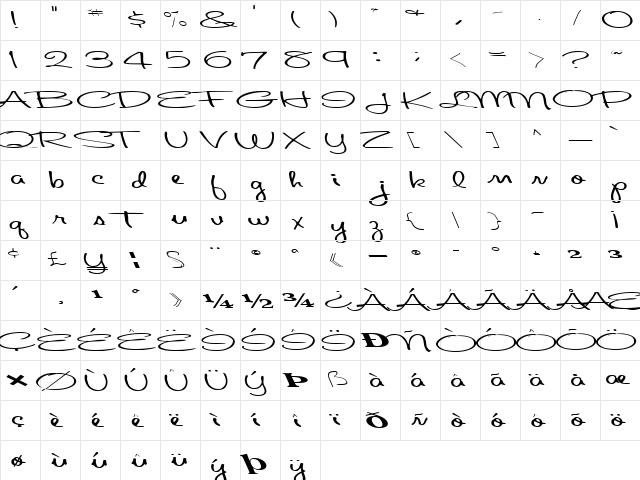
AboutFace33 Regular
Design Context for AboutFace33 Typeface
AboutFace33 is a composed and adaptable typeface that performs quietly and consistently across a wide range of design contexts.